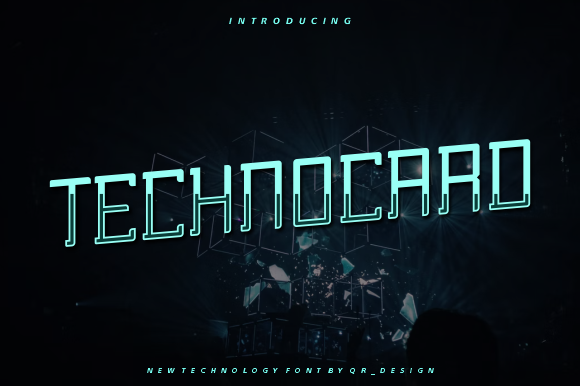
Technocard: Bold and Authentic Display Font
Choosing the right font can make a significant difference in how your brand is perceived. Technocard - Modern Font stands out as a bold and authentic display font, designed to capture attention and convey strength in any branding project. Whether you're creating a logo, designing t-shirts, or working on game or sports branding, this font offers a versatile solution that fits a wide range of contexts.
For professionals, creators, and entrepreneurs, the visual impact of typography is more than just aestheticsāit's a powerful tool for communication. Technocard delivers clarity and confidence, making it ideal for projects where strong visual identity is key. Its modern design ensures it remains relevant across different industries and applications.
Why Technocard Matters for Your Brand
In todayās competitive market, standing out is essential. Technocard - Modern Font provides a distinctive look that helps your brand differentiate itself. The fontās boldness makes it perfect for headlines, logos, and other prominent elements where visibility is crucial. It conveys professionalism and innovation, which are important traits for businesses aiming to build trust with their audience.
Consider a small business owner launching a new product line. Using Technocard in their branding materials can help create a memorable identity that resonates with customers. The fontās clean lines and strong presence make it suitable for both digital and print media, ensuring consistency across all platforms.
Practical Benefits of Using Technocard
One of the most valuable aspects of Technocard is its adaptability. It works well in a variety of formats, from website headers to social media graphics. This flexibility saves time and effort, as designers donāt need to search for multiple fonts to achieve the desired effect.
For example, a graphic designer working on a sports teamās merchandise might use Technocard for jersey numbers or team names. The fontās readability at different sizes ensures that it remains effective whether printed on a small patch or a large banner. This level of versatility makes it a reliable choice for creative professionals.
Who Can Benefit from Technocard?
Entrepreneurs and small business owners looking to establish a strong brand presence will find Technocard particularly useful. Its bold style supports the message of confidence and authority, which are important for building credibility. Marketers can also benefit by using it in campaign materials to draw attention and reinforce brand messaging.
Bloggers and content creators may use Technocard for titles and headings to add visual interest to their posts. The fontās modern aesthetic aligns well with current design trends, helping content stand out in a crowded online space. Educators and publishers might find it useful for creating engaging presentations or educational materials that require clear and impactful typography.
Enhancing Communication Through Design
Typography plays a critical role in how information is received. Technocardās design ensures that messages are not only seen but also understood. Its structured yet dynamic form allows for easy reading, even in complex layouts. This makes it an excellent choice for projects that require both visual appeal and functional clarity.
Imagine a game developer looking for a font that matches the energy of their gameās theme. Technocard could be used for the title screen or in-game UI elements, reinforcing the gameās overall vibe. The fontās ability to blend strength with elegance makes it suitable for a wide range of creative expressions.
Considerations When Choosing a Font
While Technocard offers many advantages, itās important to consider the context in which it will be used. For instance, while it excels in display settings, it may not be the best choice for long blocks of text due to its bold and stylized nature. Readers may find it less comfortable for extended reading compared to more traditional typefaces.
Users should also evaluate how well Technocard integrates with their existing design system. Testing it in different scenariosāsuch as on various devices or backgroundsācan help determine if it meets their specific needs. Comparing it with similar fonts can provide insight into which option best suits their goals.
Supporting Creativity and Efficiency
Designers often face tight deadlines and high expectations. Technocard streamlines the creative process by offering a reliable and visually striking option that requires minimal adjustment. Its consistent performance across different mediums reduces the need for constant revisions, allowing teams to focus on other aspects of their work.
For example, a marketing team developing a campaign for a new sportswear brand might use Technocard for promotional banners and social media posts. The fontās bold style aligns with the energetic nature of the product, helping to create a cohesive and compelling visual narrative.
By focusing on the specific benefits and real-world applications of Technocard, users can make informed decisions that align with their goals. As with any design element, understanding the strengths and limitations of the font ensures that it is used effectively to achieve the desired outcome.